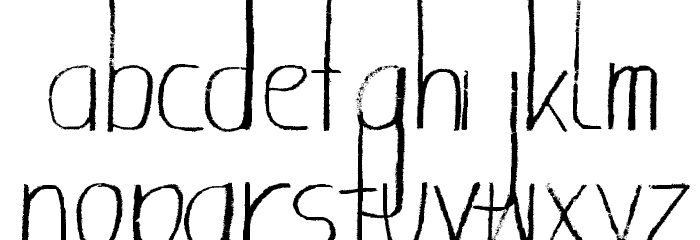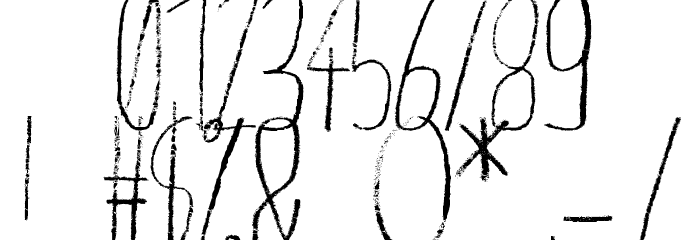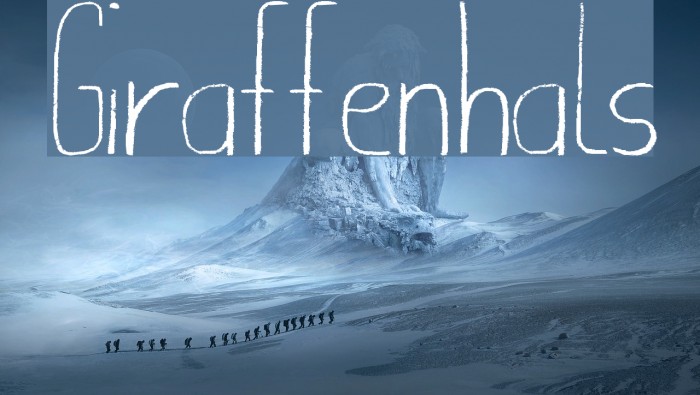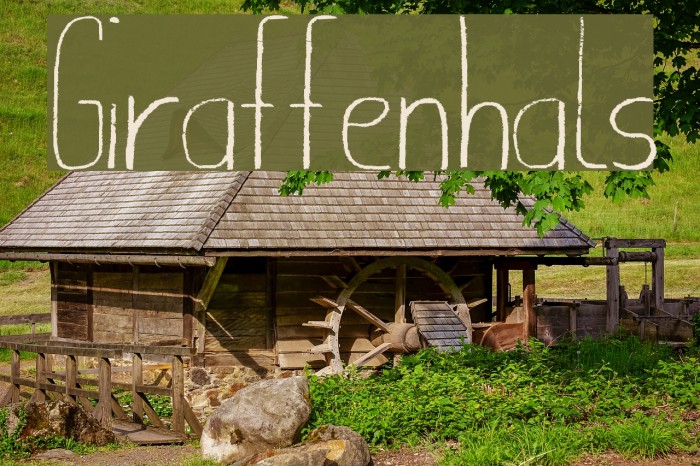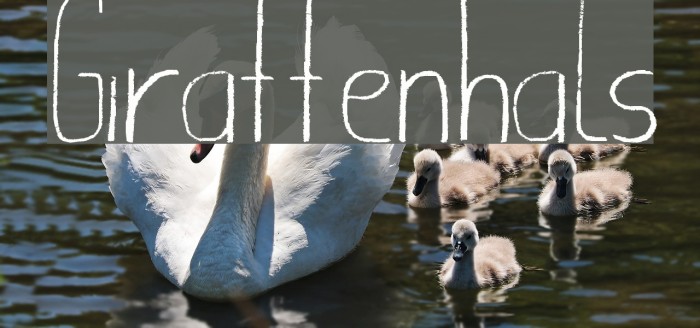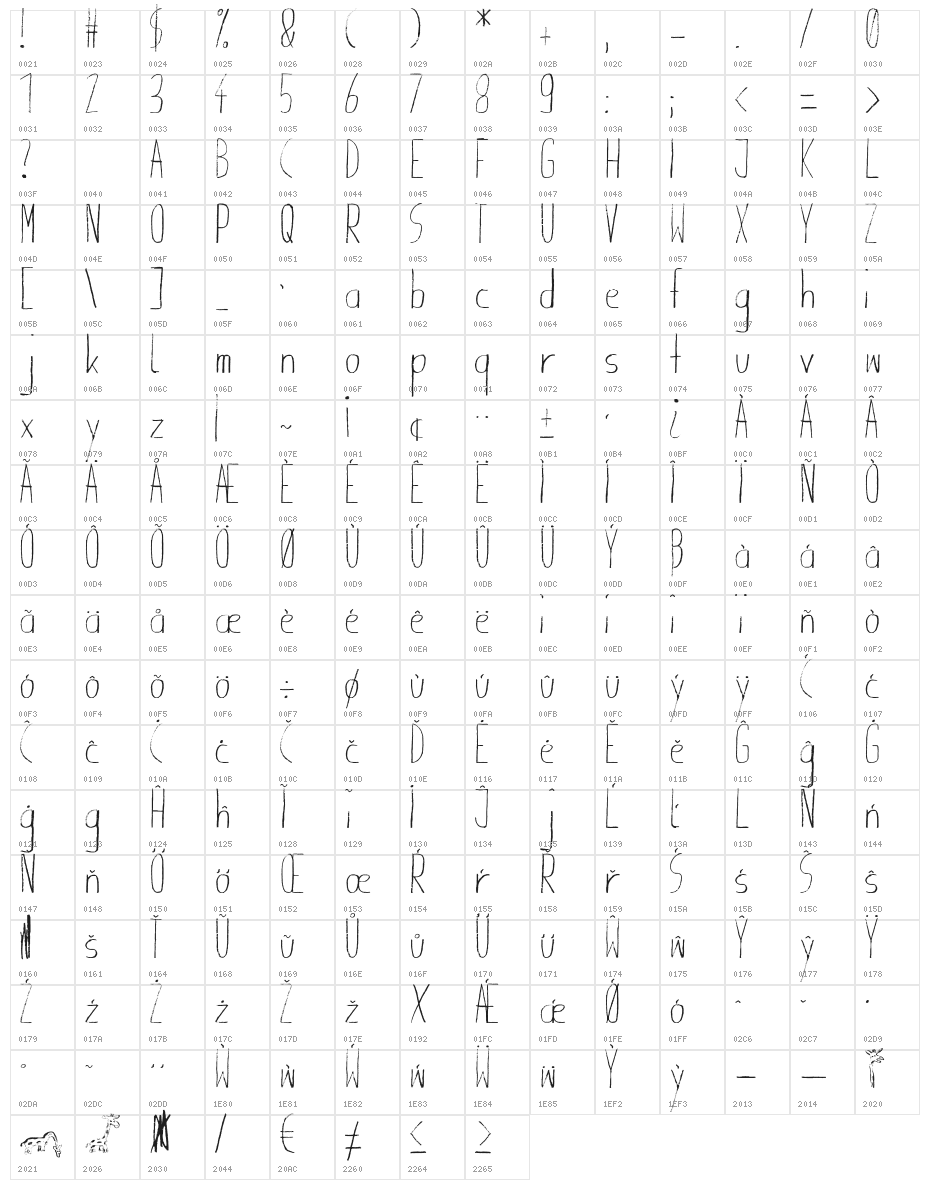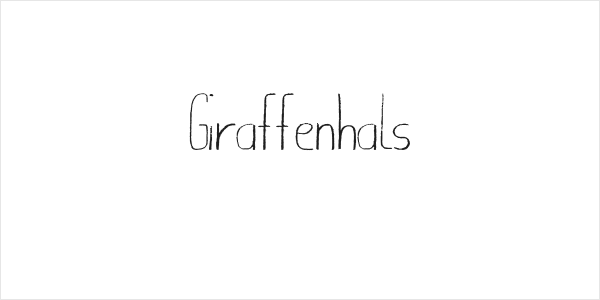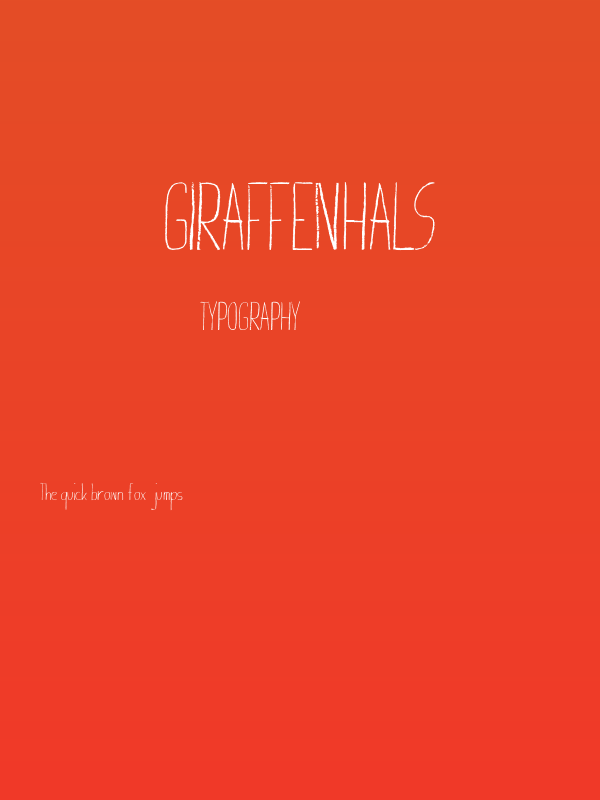
Giraffenhals Font
This font features an elongated and narrow design, reminiscent of a giraffe's neck, with tall, slender characters that create a unique and striking appearance. The letters are slightly irregular, giving them a hand-drawn feel, while maintaining a modern aesthetic. The uppercase and lowercase letters share a consistent height, enhancing the font's uniformity. The numbers and special characters follow the same elongated style, ensuring a cohesive look across all elements. This font's distinctive style makes it ideal for creative and artistic projects.
A tall, narrow font with a hand-drawn, modern aesthetic.